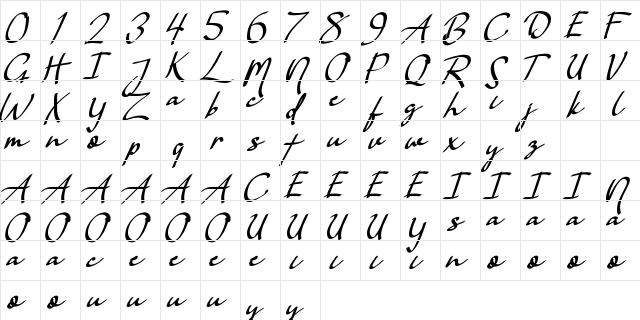
Vanilla Personal Bold
Design Context for Vanilla Personal Typeface
Vanilla Personal is a composed and adaptable typeface that performs quietly and consistently across a wide range of design contexts. The heavy weight commands attention and anchors typographic hierarchies.
Pro Tip: Use Vanilla Personal in both headline and body roles to test its range before committing to a single application.